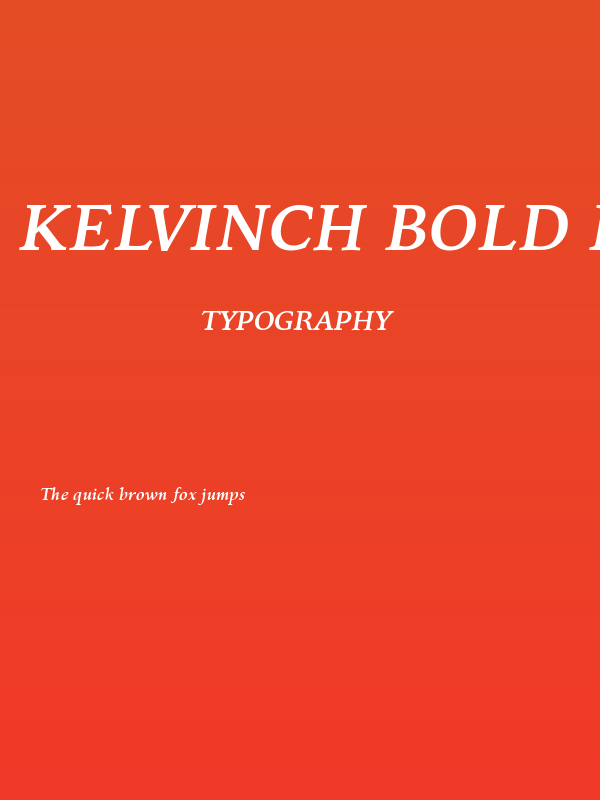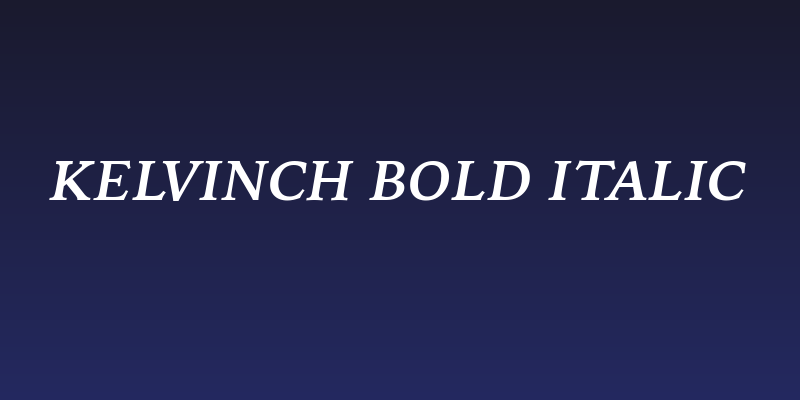
Kelvinch Bold Italic Font
Kelvinch Bold Italic Description
This font exhibits a classic serif style with a bold and italicized form. The characters are elegantly slanted, providing a dynamic and sophisticated appearance. The serifs are pronounced, adding a touch of formality and tradition. The strokes are thick, contributing to a bold presence, while the italic slant gives it a sense of motion and elegance. The numerals are consistent with the alphabet, maintaining the same bold and italic characteristics. Special characters are well-integrated, ensuring a cohesive look across all glyphs. This font is suitable for projects that require a blend of tradition and modernity, offering both readability and style.
| Use Case | Headlines, Logos, Editorial design |
| Proposed Projects | Ideal for book covers, formal invitations, branding, and editorial design. |